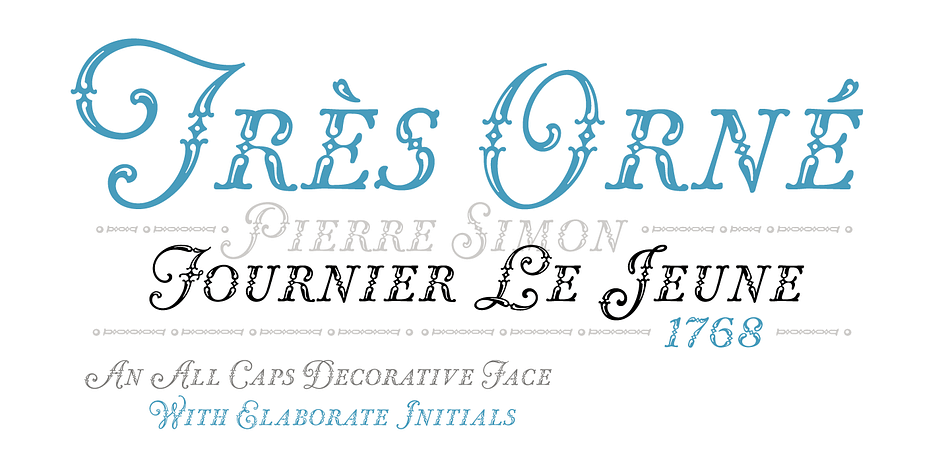
Designed by Paul Hunt, LTC Fournier Le Jeune is a monograms, display and western font published by P22 Type Foundry.
Based on the all caps decorative face Fournier le Jeune of 1768 by Pierre Simon Fournier for the Peignot Foundry. This version uses more elaborate “Vogue Initials” caps which were offered by ATF in 1920s. Because of the decorative nature of this design, a full character set is not included, but accented characters and basic punctuation are included.